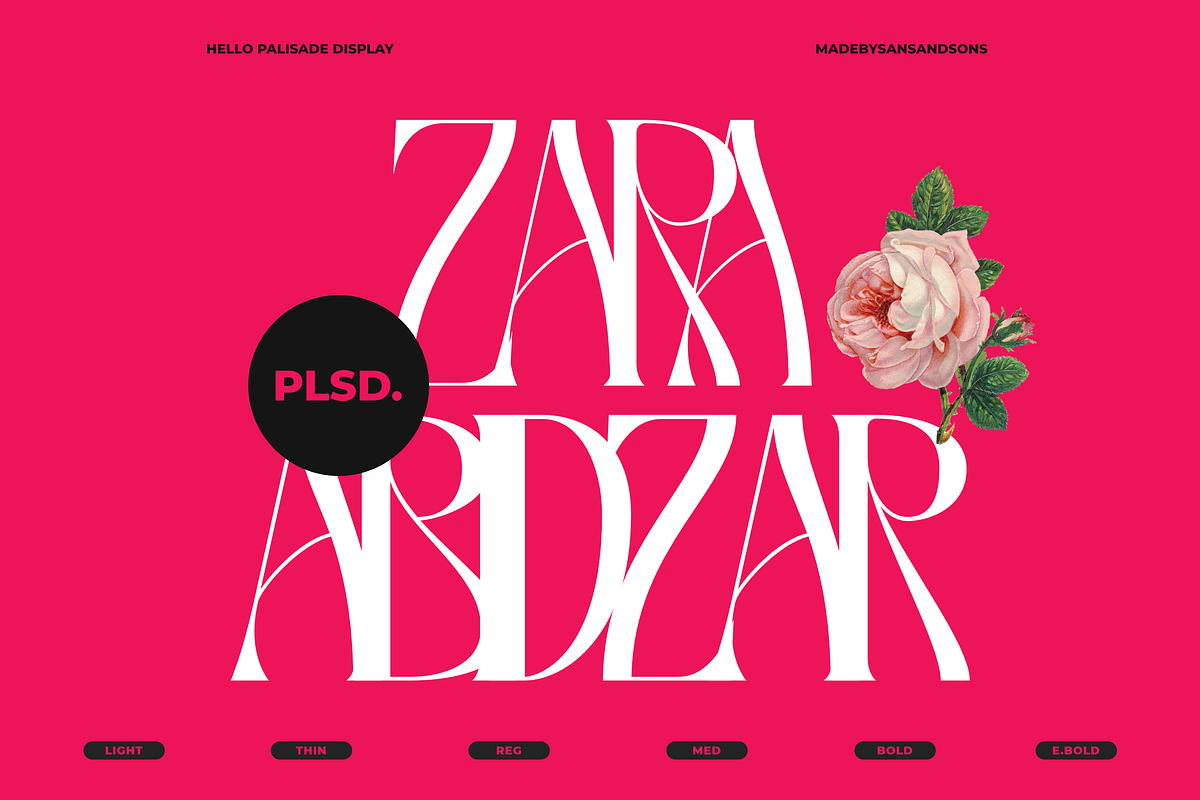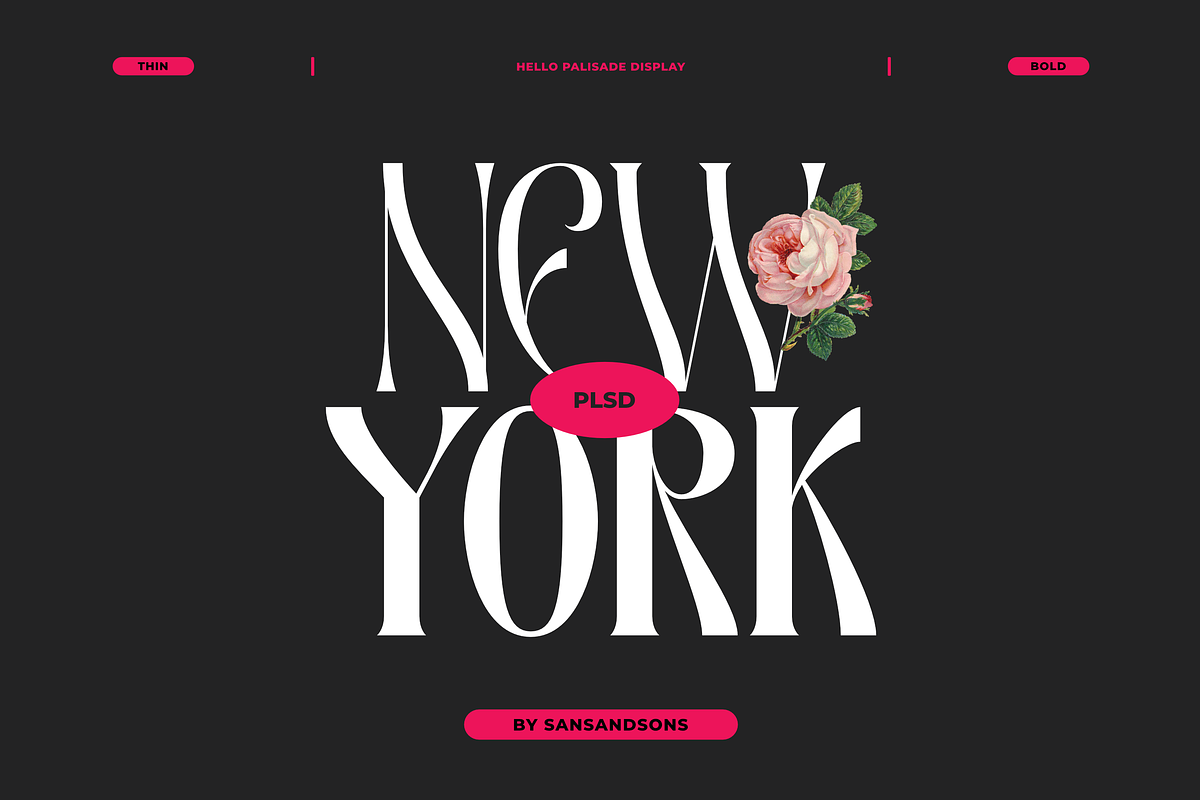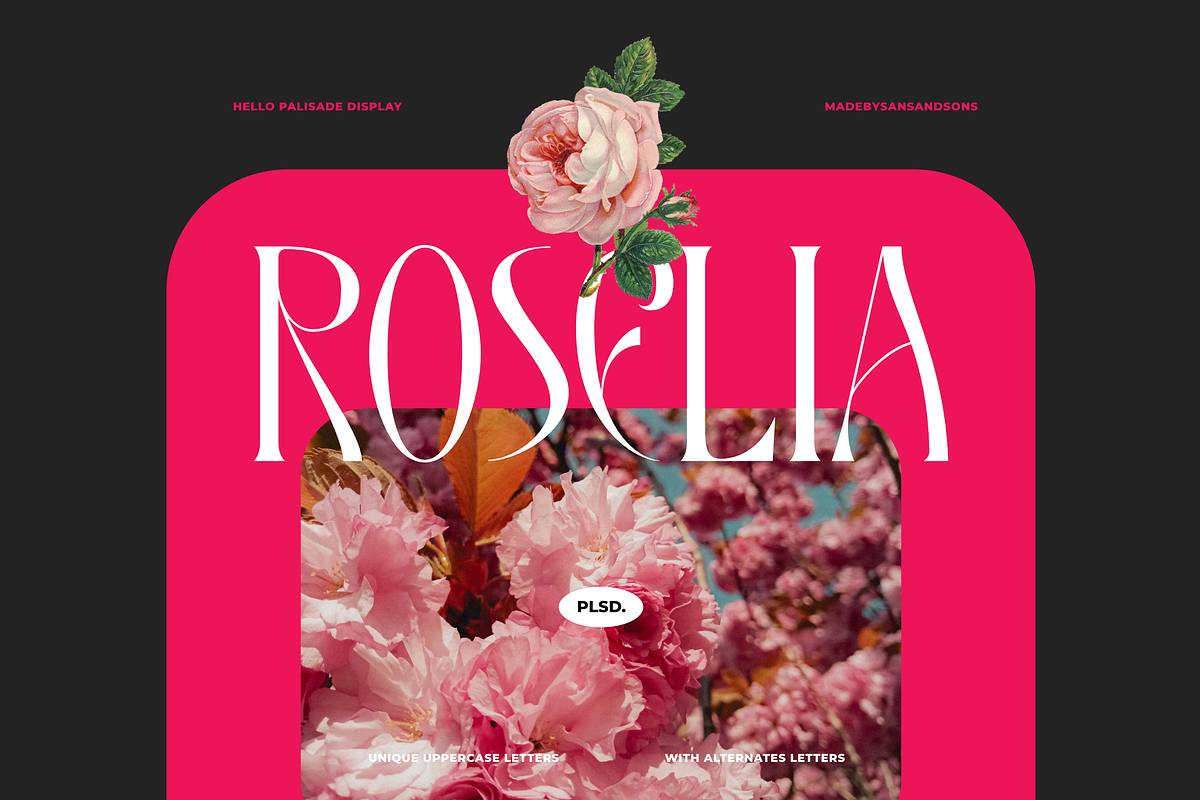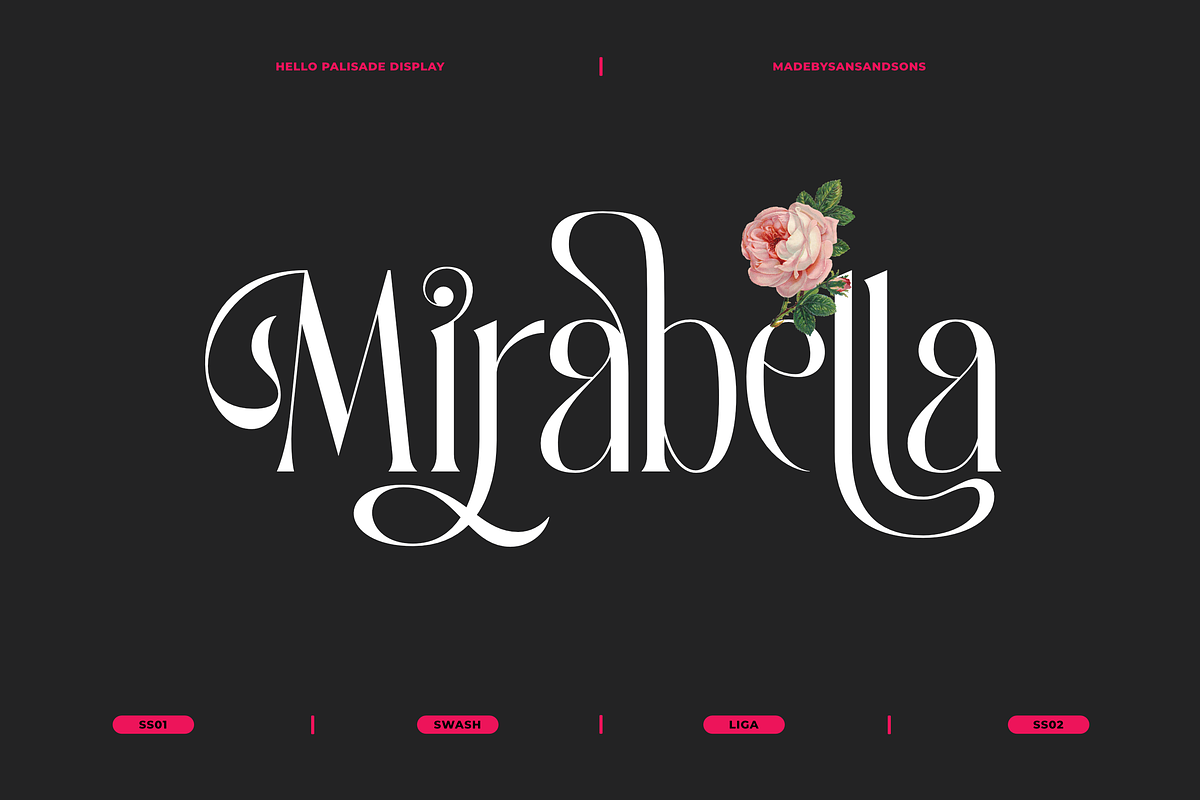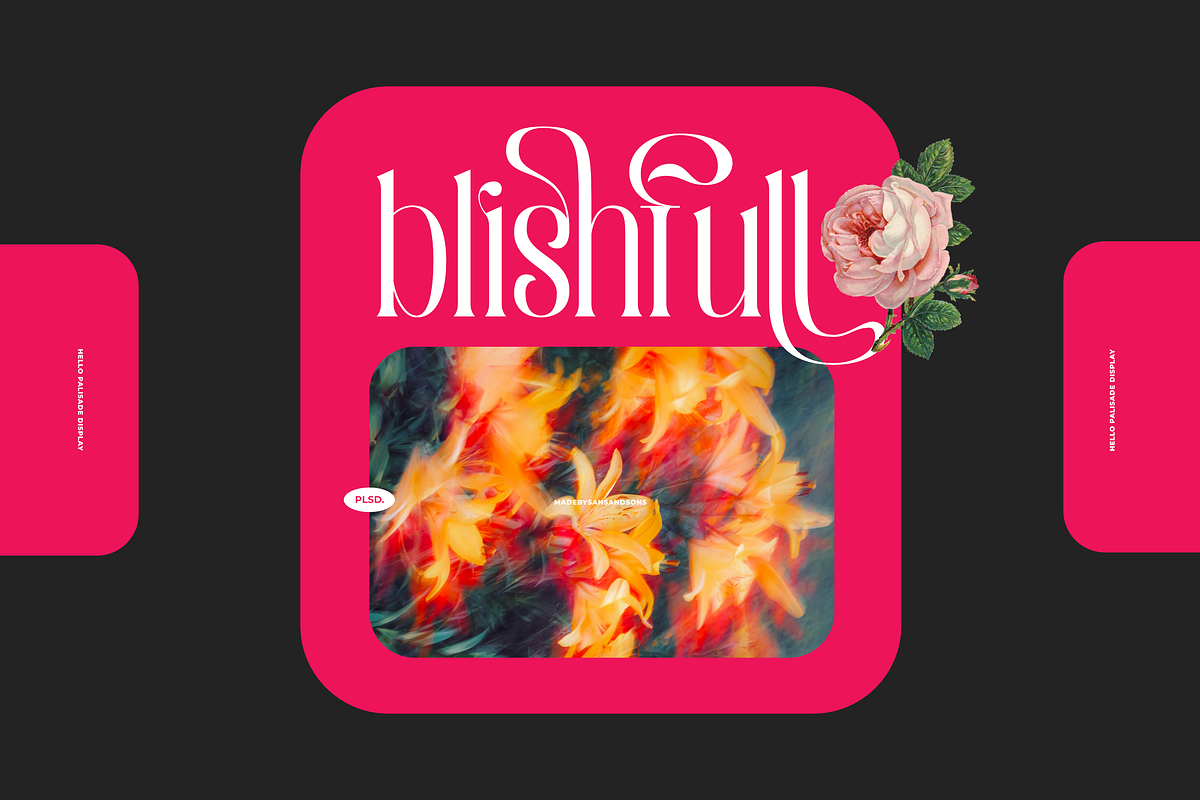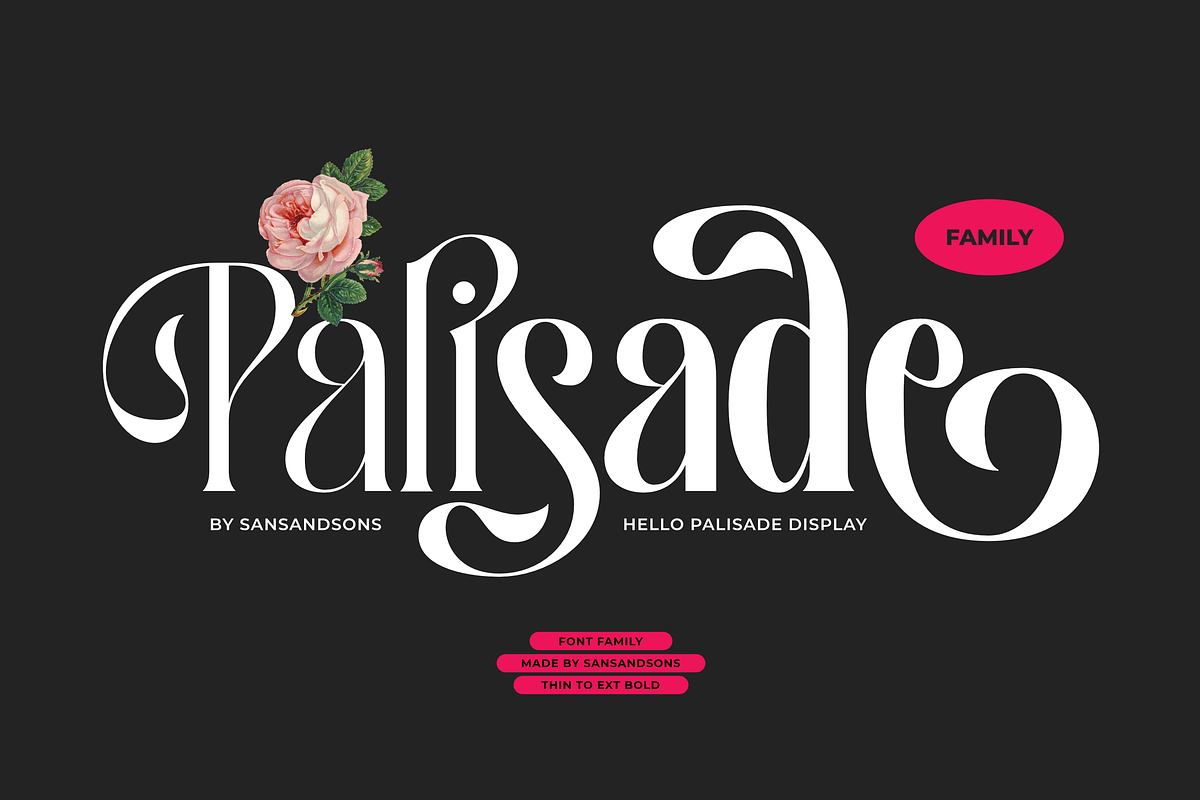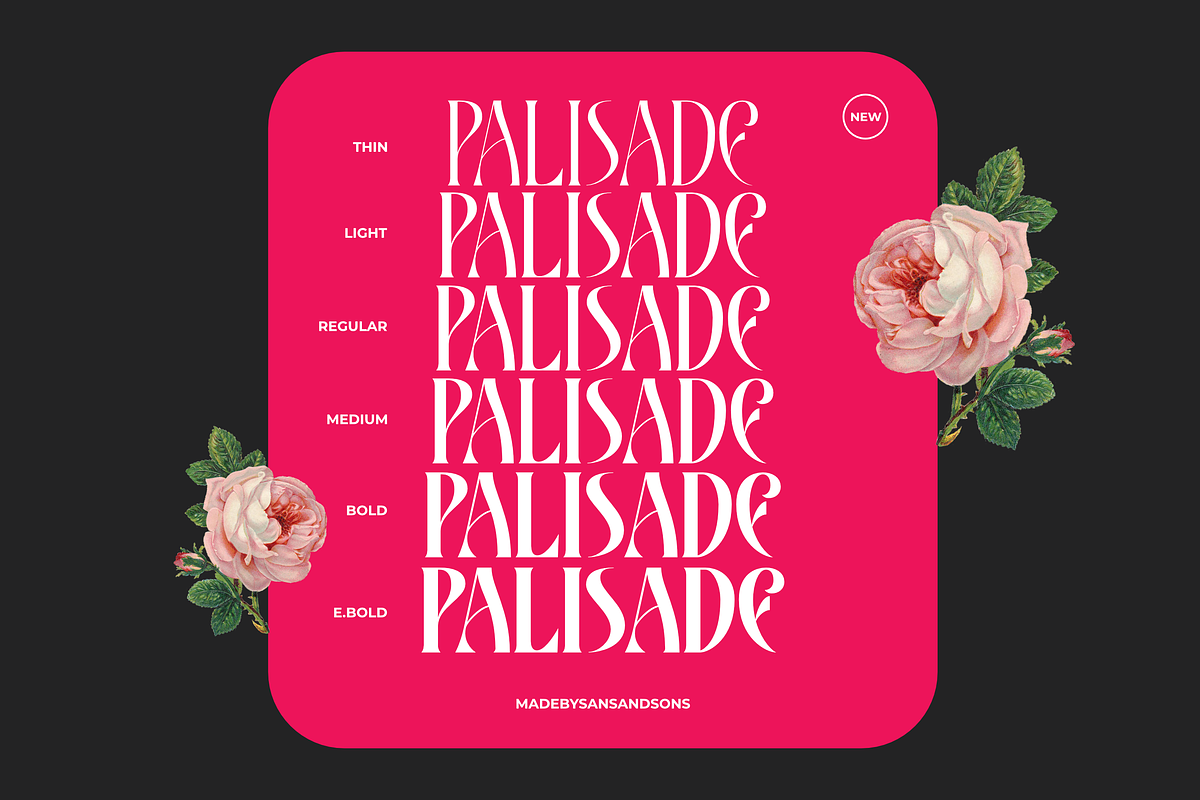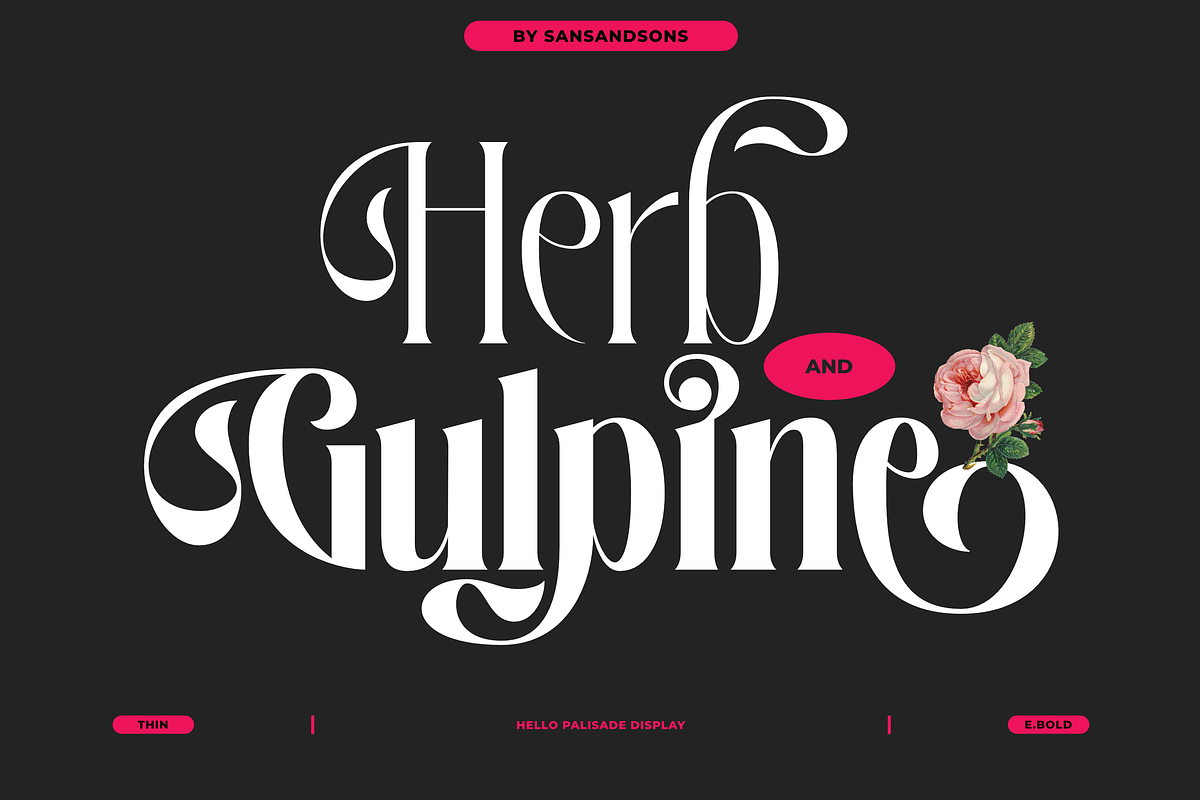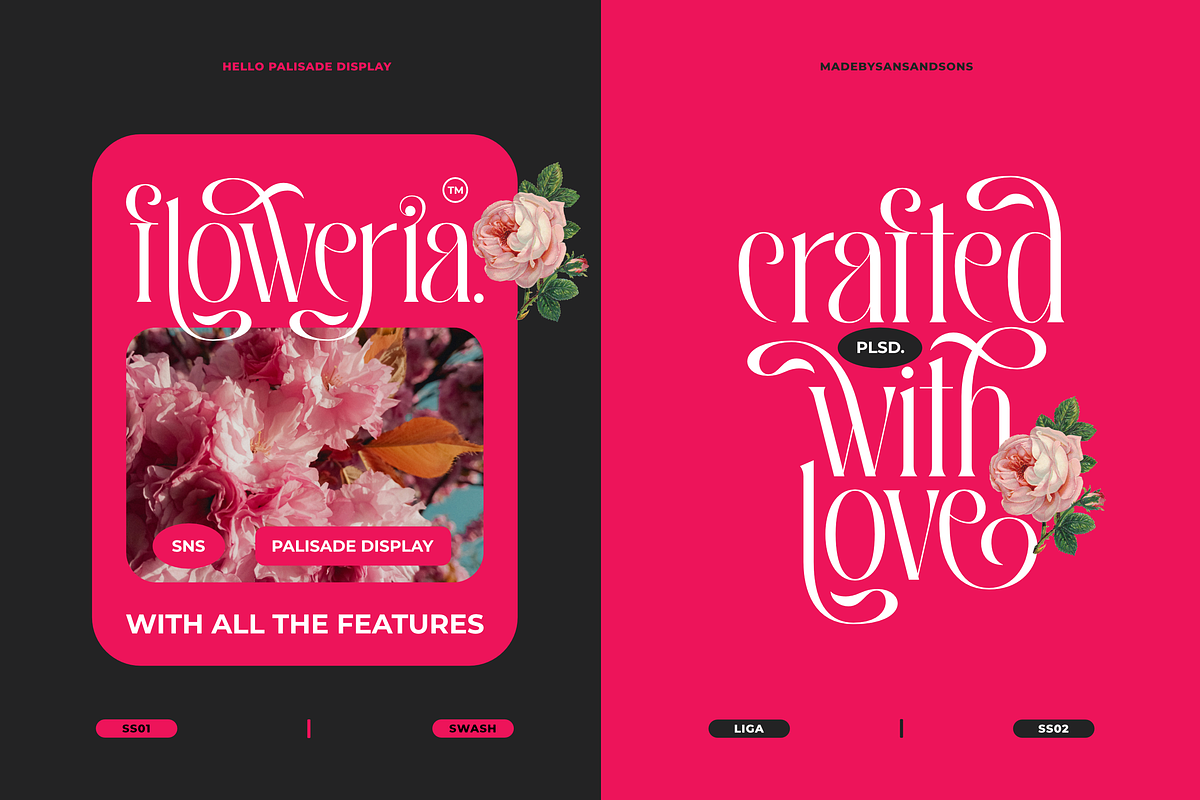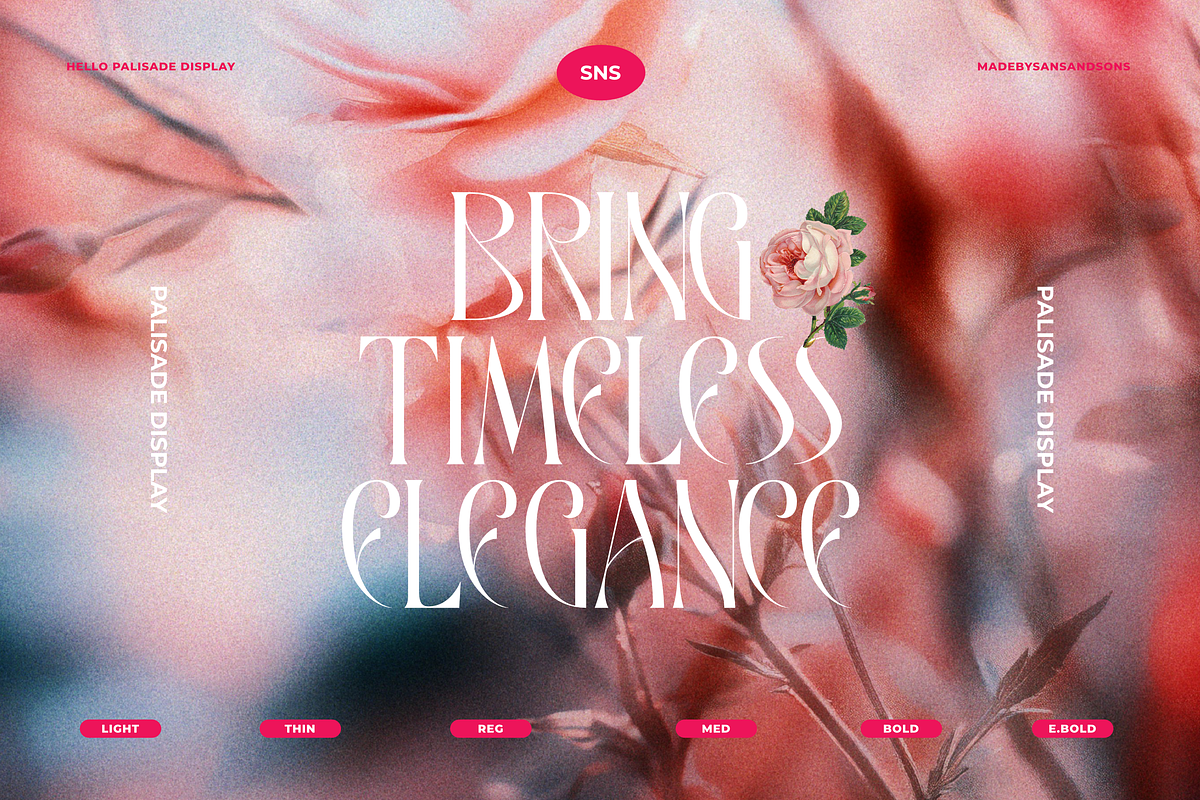
Hello Palisade Family
Introducing Hello Palisade Family — a font that’s all about making a statement, from its delicate thin style to its bold, attention-grabbing extra-bold.
Designed for those who appreciate a touch of sophistication with a modern twist, this font family is perfect for branding, social media, packaging, and everything in between. The thin styles add a touch of elegance and airiness, while the heavier weights bring power and personality.
Whether you’re creating a sleek logo, stylish magazine cover, or standout social post, Hello Palisade has you covered. It’s a versatile typeface that’s ready to elevate your design game with just the right balance of style and substance.